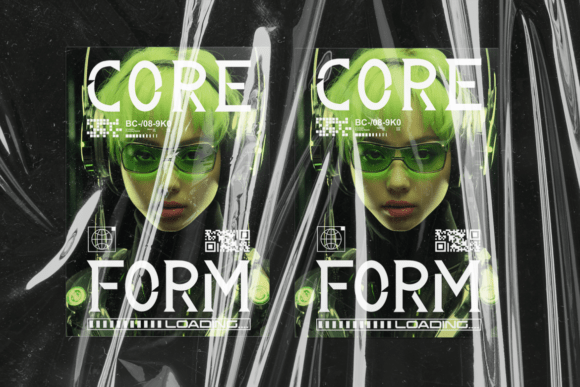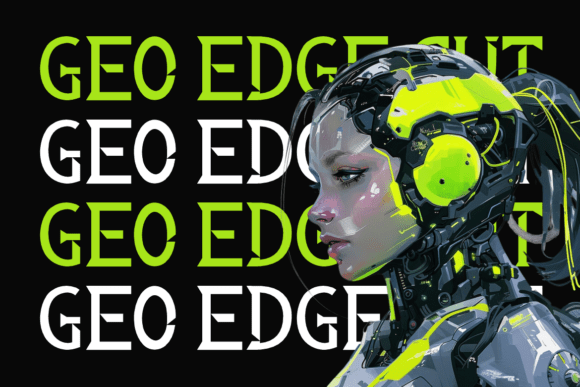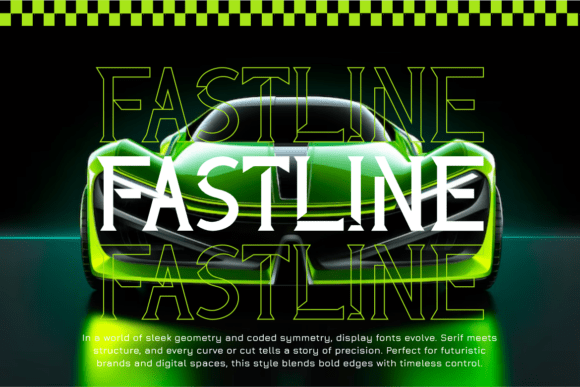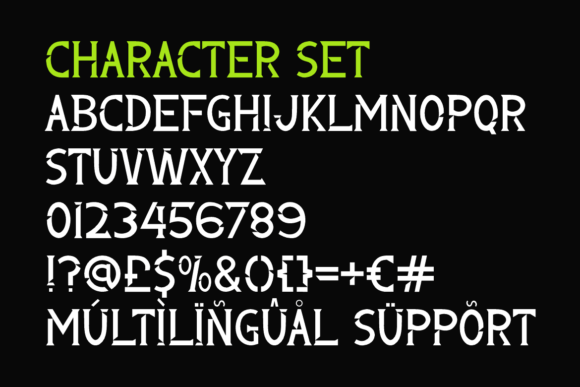
Introducing Grader Shave Font: The Future of Serif Typography
In the ever-evolving world of typography, a new font has emerged that is redefining the way we think about serif fonts. Meet Grader Shave, a modern, futuristic font that is pushing the boundaries of traditional typography with its sharp geometry and ultra-clean cuts. Designed to make a statement, Grader Shave is perfect for modern tech projects, esports branding, and digital platforms seeking innovation through visual identity.
The Anatomy of Grader Shave
Grader Shave’s unique design is characterized by its precision terminals, alternating line weights, and coded symmetry. These features come together to create a bold yet readable font that exudes strength, clarity, and futuristic sophistication. The dynamic letterforms of Grader Shave are designed to project a sense of innovation and forward thinking, making it ideal for projects that require a cutting-edge visual identity.
Perfect for Modern Tech Projects
Grader Shave is specifically designed with modern tech projects in mind. Its futuristic aesthetic and sleek design make it perfect for use in a variety of applications, including posters, logos, packaging, editorial headlines, and cyberpunk designs. Whether you’re branding an esports team or designing promotional visuals for a sci-fi film, Grader Shave offers a compelling type solution that’s both sleek and memorable.
Key Features of Grader Shave
- Sharp Geometry: Grader Shave’s sharp geometry gives it a modern and futuristic feel that’s perfect for tech projects and digital platforms.
- Ultra-Clean Cuts: The font’s ultra-clean cuts add to its sleek and sophisticated aesthetic, making it perfect for use in high-end branding and advertising.
- Alternating Line Weights: Grader Shave’s alternating line weights add visual interest and depth to the font, making it perfect for use in editorial headlines and promotional materials.
- Coded Symmetry: The font’s coded symmetry gives it a sense of precision and attention to detail, making it perfect for use in tech projects and digital platforms.
Use Cases for Grader Shave
Grader Shave is a versatile font that can be used in a variety of applications, including:
- Esports Branding: Grader Shave’s futuristic aesthetic and bold design make it perfect for use in esports branding, including team logos, jerseys, and promotional materials.
- Cyberpunk Designs: The font’s sharp geometry and ultra-clean cuts make it perfect for use in cyberpunk designs, including posters, flyers, and digital artwork.
- Game Titles: Grader Shave’s dynamic letterforms and bold design make it perfect for use in game titles, including logos, packaging, and promotional materials.
- Editorial Headlines: The font’s alternating line weights and coded symmetry make it perfect for use in editorial headlines, including magazines, newspapers, and digital publications.
Why Choose Grader Shave?
Grader Shave offers a unique combination of style, sophistication, and versatility that makes it the perfect choice for designers and crafters looking for a modern, futuristic font. Here are just a few reasons why you should choose Grader Shave for your next project:
- Unique Design: Grader Shave’s sharp geometry and ultra-clean cuts give it a unique design that’s unlike any other font on the market.
- Versatility: The font’s versatility makes it perfect for use in a variety of applications, from esports branding to cyberpunk designs.
- Readability: Grader Shave’s bold yet readable design makes it perfect for use in editorial headlines and promotional materials.
- Memorability: The font’s dynamic letterforms and sleek design make it memorable and eye-catching, perfect for use in branding and advertising.
Grader Shave is a game-changing font that’s redefining the way we think about serif typography. Its sharp geometry, ultra-clean cuts, and coded symmetry make it perfect for modern tech projects, esports branding, and digital platforms seeking innovation through visual identity. With its versatility, readability, and memorability, Grader Shave is the perfect choice for designers and crafters looking for a modern, futuristic font. Whether you’re branding an esports team or designing promotional visuals for a sci-fi film, Grader Shave offers a compelling type solution that’s both sleek and memorable.